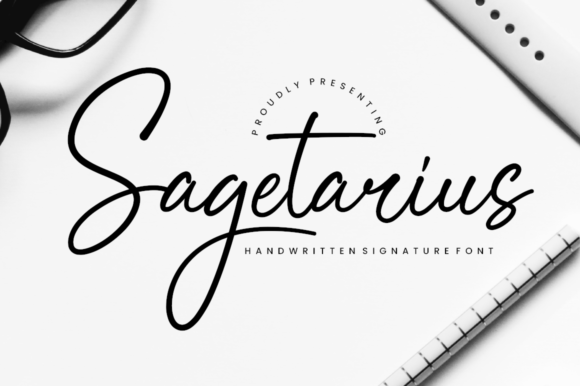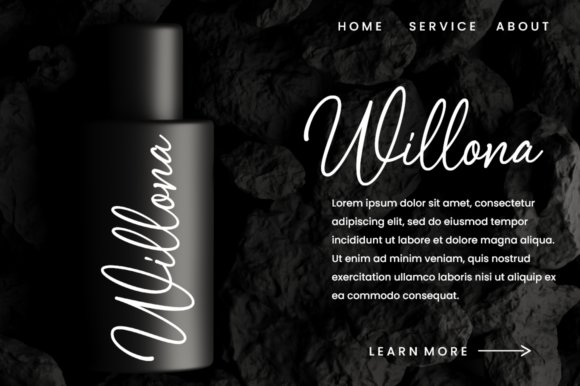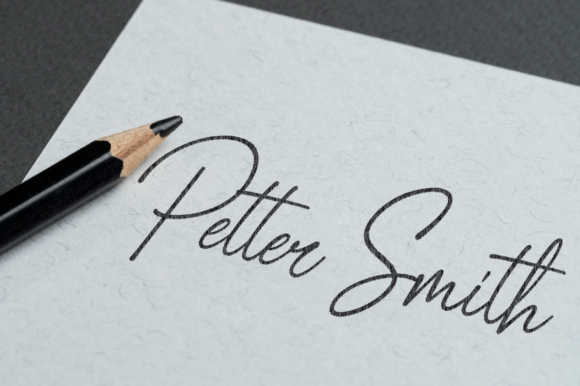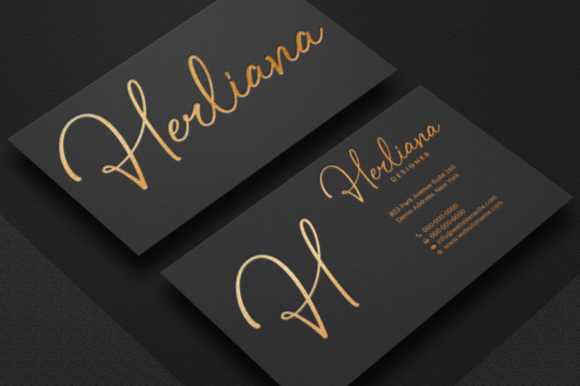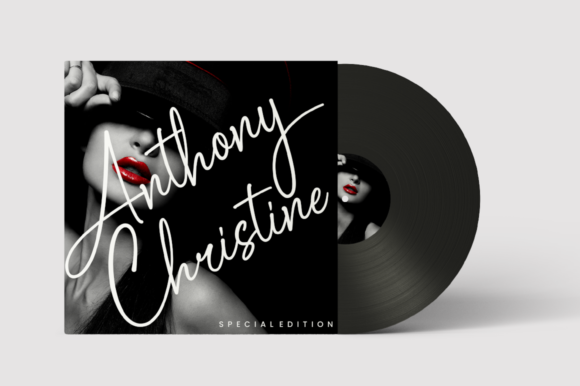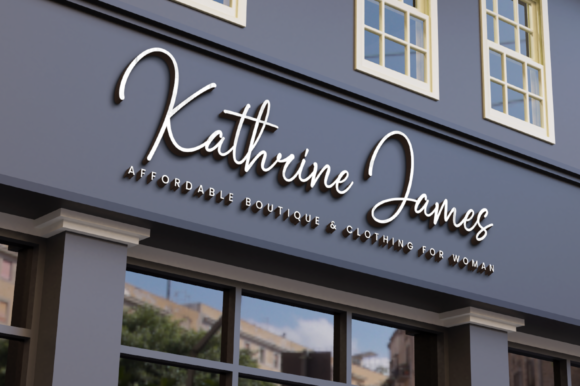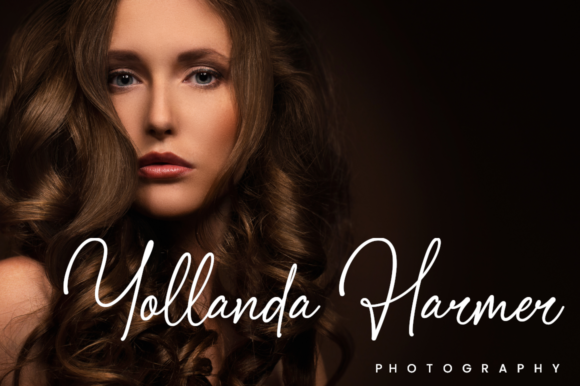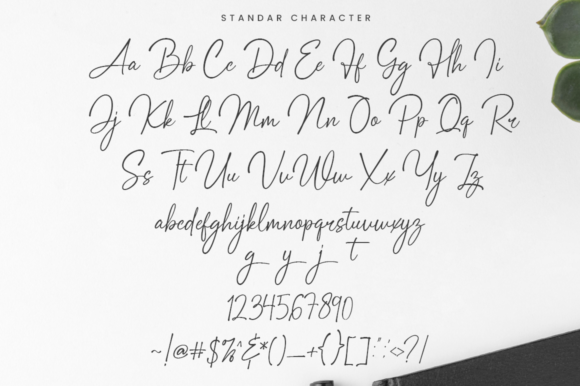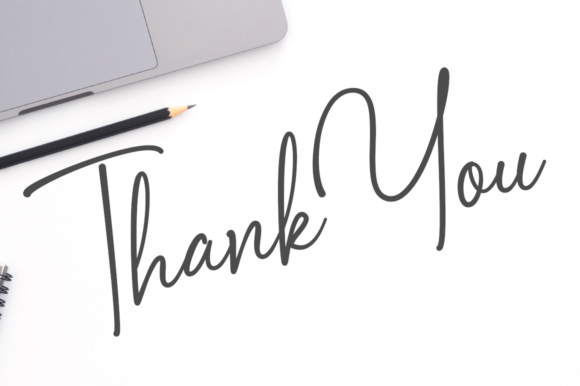
Sagetarius Font
About Sagetarius Font
Sagetarius is an exquisite handwritten font, expertly created to become a true favorite. It features thin and delicate characters and it is ideal for a wide range of creations.